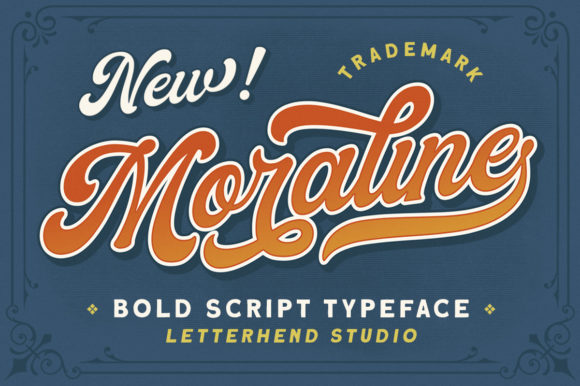
Introducing Moraline Font, the ultimate choice for anyone seeking the best font for name sign projects. Created by the talented designers at letterhend, this retro-styled and bold handwritten font will take your headlines and logotypes to a whole new level of style and sophistication.
Moraline exudes strength, confidence, and dynamism, making it the perfect choice for those who want their designs to leave a lasting impression. With its unique charm and nostalgic character, this font is bound to captivate your audience and make your projects stand out from the crowd.
Crafted with utmost attention to detail, Moraline is not just a font, but a work of art that brings your ideas to life. Its carefully crafted curves and strokes lend an air of elegance and creativity to any design, making it a versatile choice for various applications.
Whether you're looking to create stunning name signs, eye-catching headlines, or memorable logos, Moraline has got you covered. Its versatility allows you to play with different styles and layouts, giving you endless possibilities to showcase your creativity and make a lasting impact.
But Moraline is not just about aesthetics; it's also about functionality. Its legibility ensures that your message is conveyed clearly, while its boldness adds a touch of modernity and uniqueness to your designs.